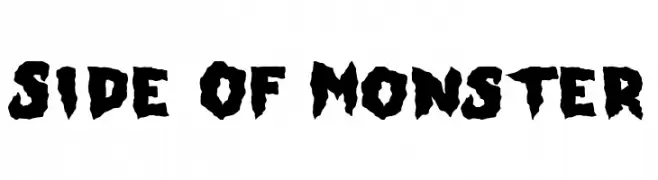
A bold, jagged font with an aggressive, scratched appearance.
A chilling, jagged font perfect for horror themes.
A jagged, edgy font with irregular, sharp strokes resembling torn paper.
A bold, jagged font with a chilling, horror-themed aesthetic.
A bold, jagged font with an edgy, chaotic design ideal for dramatic themes.
A bold, sans-serif typeface with a strong, authoritative presence.
A jagged, eerie font ideal for horror-themed projects.
A jagged, horror-themed font with sharp, irregular edges.
A jagged, horror-themed font with a hand-drawn, distressed appearance.
A bold, spooky font with jagged, irregular characters perfect for horror themes.